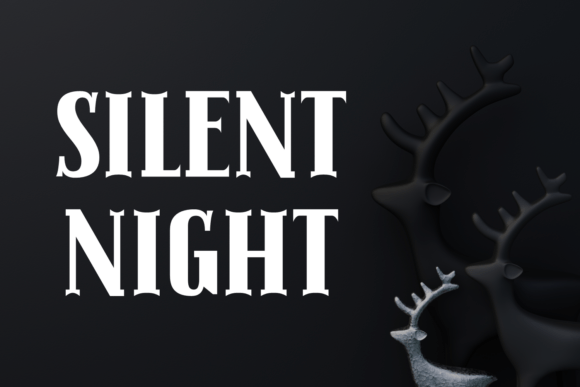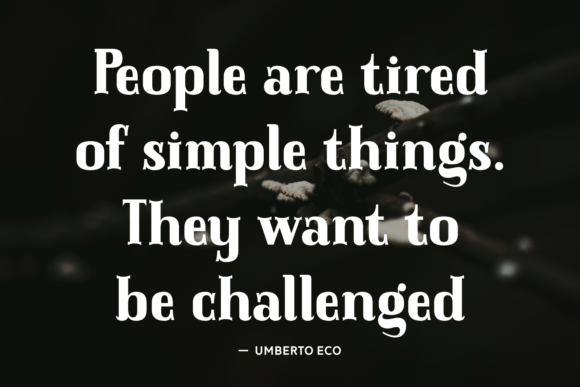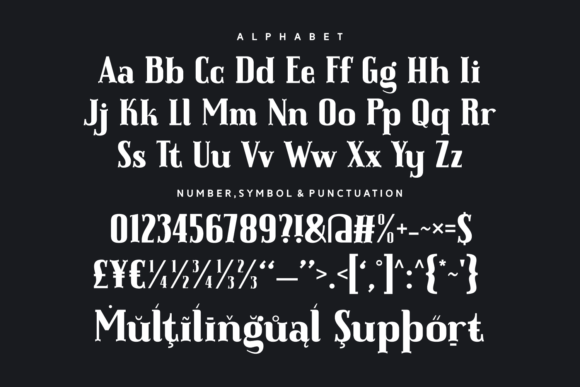
Aurora Today Font: Elevate Your Designs with Timeless Elegance
In the world of typography, few fonts manage to strike a balance between classic sophistication and modern flair. However, “Aurora Today” stands out as a shining example of a serif font that seamlessly blends elegance with contemporary style. This versatile font is perfect for brands, designers, and crafters looking to add a touch of refinement to their projects.
The Essence of Aurora Today
“Aurora Today” is more than just a font – it’s an experience. Its sleek charm and graceful aesthetic make it an ideal choice for a wide range of applications, from photography accents and apparel branding to book covers, magazines, and sophisticated packaging designs. The font’s authentic and easy-to-read nature ensures that it can be used in various contexts, from greeting card inscriptions to standout quotes.
Key Features of Aurora Today
- Timeless Elegance: “Aurora Today” boasts a classic serif design that exudes sophistication and refinement.
- Versatility: This font is perfect for various applications, including branding, packaging, book covers, magazines, and more.
- Ease of Readability: The font’s smooth curves and rounded edges make it easy to read, even in smaller sizes.
- Polished Aesthetic: Every stroke of “Aurora Today” exudes polished elegance, making it perfect for designs that require a touch of sophistication.
Applications of Aurora Today
The versatility of “Aurora Today” makes it an excellent choice for various design projects. Here are some of the ways you can use this font:
- Photography Accents: Add a touch of elegance to your photography with “Aurora Today”. The font’s sleek design makes it perfect for captions, titles, and other text elements.
- Apparel Branding: Create stunning apparel designs with “Aurora Today”. The font’s bold and refined aesthetic makes it perfect for t-shirt prints, logos, and other branding elements.
- Book Covers and Magazines: “Aurora Today” is an excellent choice for book covers, magazine titles, and other publishing projects. Its classic serif design adds a touch of sophistication to any publication.
- Packaging Designs: Elevate your packaging designs with “Aurora Today”. The font’s polished aesthetic makes it perfect for labels, tags, and other packaging elements.
- Greeting Card Inscriptions: Add a touch of elegance to your greeting cards with “Aurora Today”. The font’s smooth curves and rounded edges make it perfect for inscriptions and messages.
Why Choose Aurora Today?
In a world where design trends are constantly evolving, “Aurora Today” stands out as a timeless and versatile font. Here are some reasons why you should choose “Aurora Today” for your next design project:
- Unique Blend of Elegance and Modernity: “Aurora Today” offers a unique blend of classic sophistication and modern flair, making it perfect for designers and brands looking to make a statement.
- Ease of Use: The font’s smooth curves and rounded edges make it easy to read and use, even for designers who are new to typography.
- High-Quality Design: “Aurora Today” is designed with high-quality craftsmanship in mind. Every stroke, curve, and edge is carefully crafted to ensure that the font looks stunning in any context.
“Aurora Today” is a font that embodies the perfect blend of elegance and contemporary style. Its versatility, ease of readability, and polished aesthetic make it an excellent choice for designers, brands, and crafters looking to elevate their designs. Whether you’re working on a photography project, apparel branding, or packaging design, “Aurora Today” is sure to make a statement. So why wait? Embrace the trend with “Aurora Today” and take your designs to great heights.